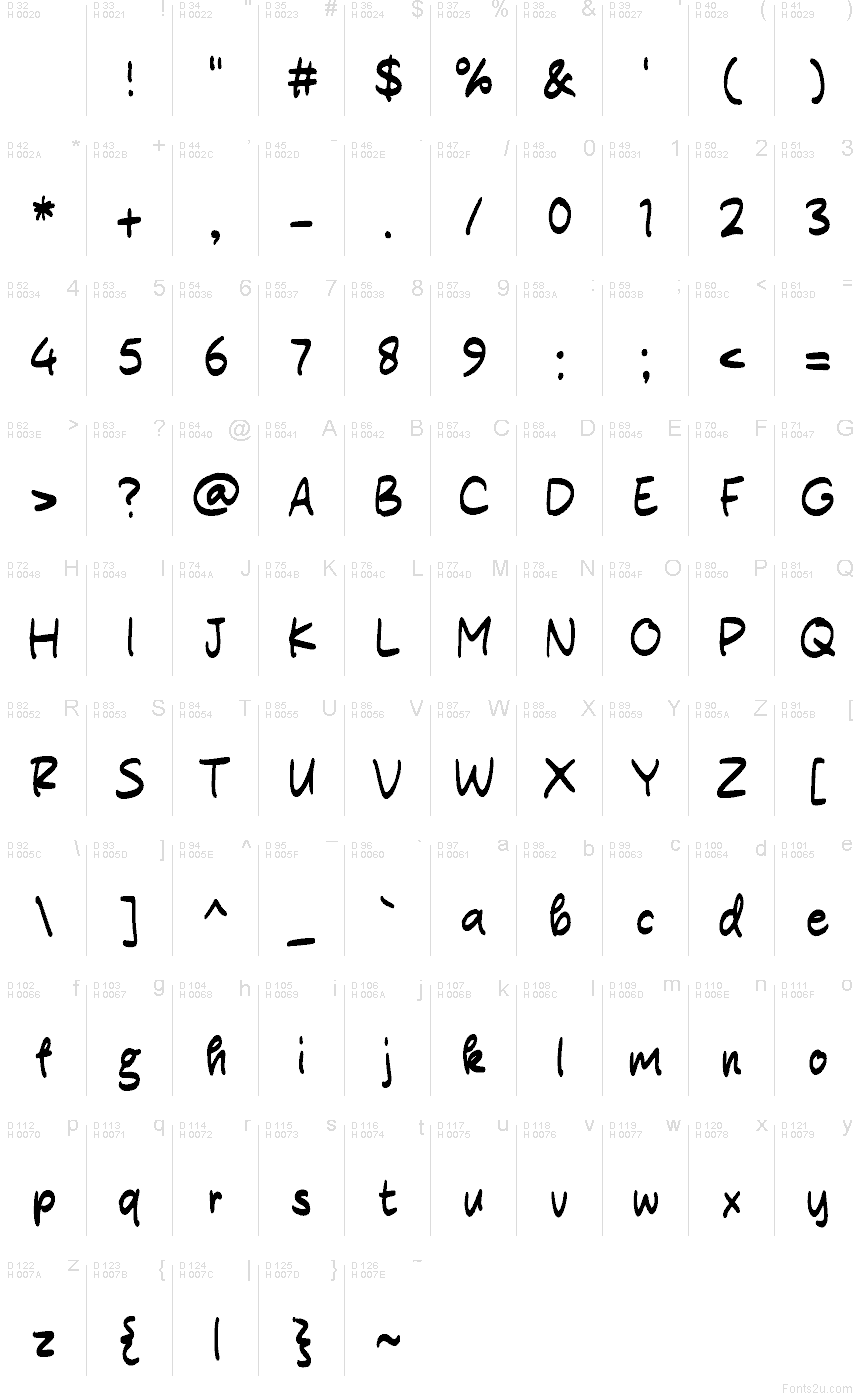
Agatha Sansa by MJType is a free brush font with a loose handwritten rhythm and a soft vintage sign-painter feel. The letters swing between rounded, open shapes and thicker painted strokes, with a slightly uneven flow that keeps it casual rather than polished.
It fits naturally into boutique branding, cafe menus, product packaging, poster headlines, and social media title cards where a human touch matters. As a free font, it also works well for short quotes and cover lines, because the brush texture and easy movement give even a few words a warm, personal presence.